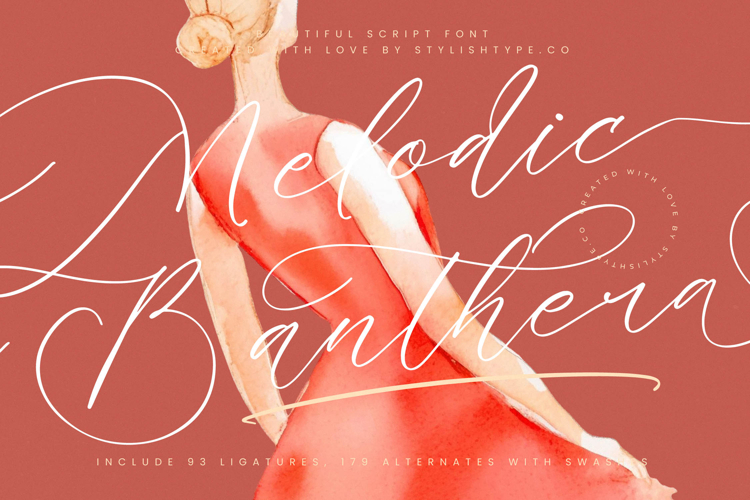
Melodic Banthera - Beautiful Script Font
The flowing swashes and delicate ligatures of Melodic Banthera adapt seamlessly across digital platforms and print applications, making it a versatile choice for a wide range of creative needs. Perfect for wedding invitations, luxury branding, editorial spreads, romantic stationery, exclusive packaging, and social media content, this script font guarantees that your designs carry a premium handwritten identity that feels romantic and professional at the same time.
The true beauty of Melodic Banthera lies in its ability to communicate intimacy and artistry. Its handwritten strokes feel romantic, flowing, and graceful, while the extensive alternates and ligatures allow you to adapt the mood — from soft and delicate to bold and dramatic. This versatility makes it highly suitable for industries such as fashion, weddings, beauty, lifestyle, and creative advertising, where emotional resonance and visual storytelling are crucial to building a lasting impression.
Melodic Banthera is more than just a decorative typeface; it is a storytelling tool. It transforms ordinary words into captivating visuals, adding a signature handwritten touch that elevates your work. From luxury logos and event posters to editorial layouts, romantic branding, and advertising campaigns, this font ensures your creative projects shine with style, personality, and elegance.
If you are looking for a script font that blends classic calligraphy refinement, modern usability, and luxury handwritten charm, Melodic Banthera is the perfect choice. It enhances your designs with sophistication, authenticity, and artistry, ensuring that every project leaves a lasting handwritten impression.